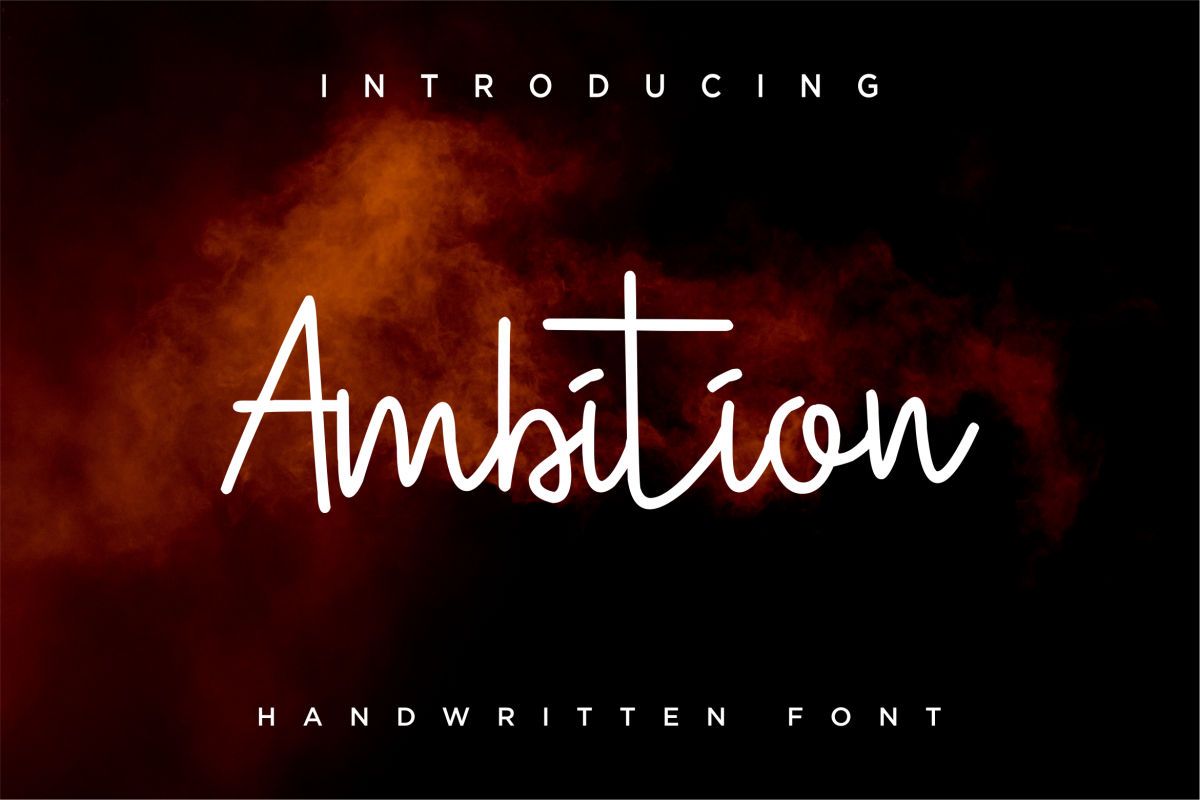
Ambition
Ambition-Regular
Ambition Script style - a new modern & fresh script with a handwritten and script style make this font looks elegant, natural, stylish and perfect for any awesome projects that need handwriting taste.